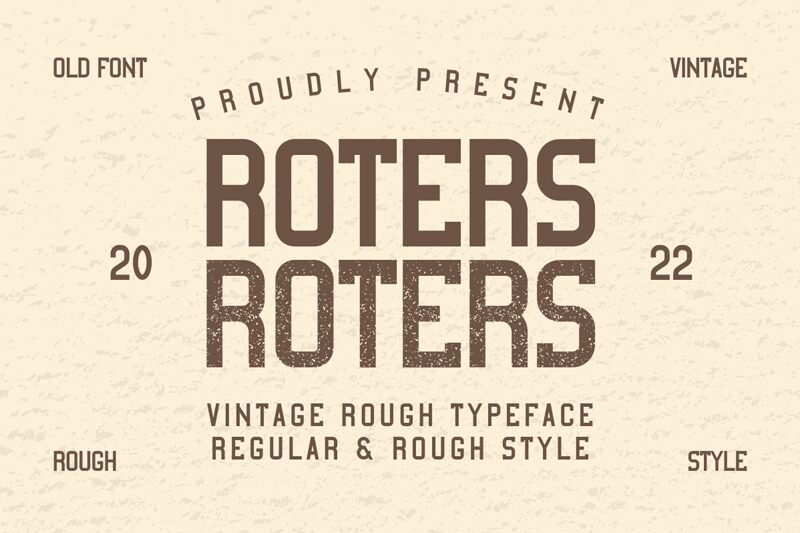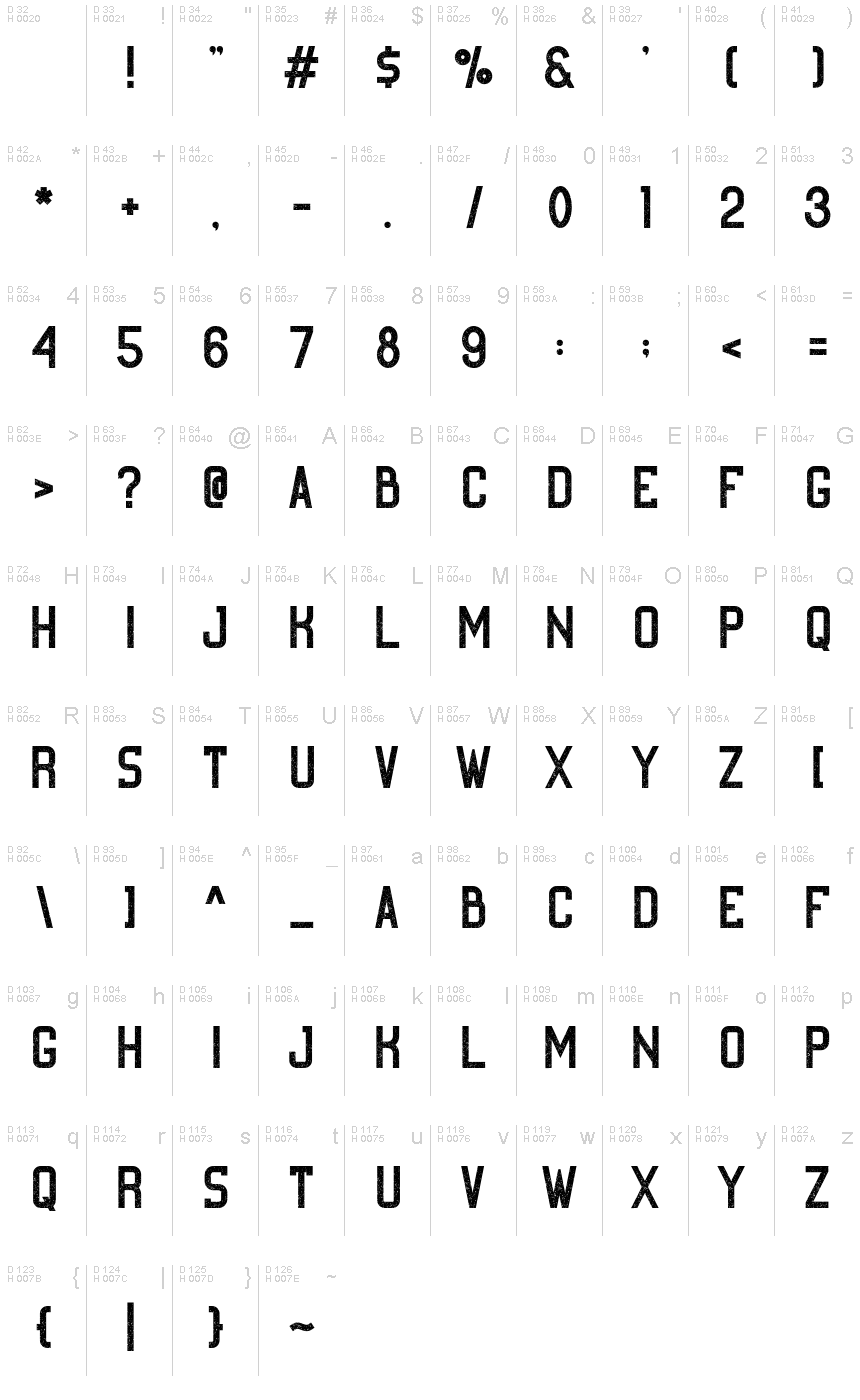
Roters Rough
Roters Rough is a striking display font that exudes a captivating retro charm. Designed by Muhammad Yafinuha, this condensed typeface boasts a rugged, eroded aesthetic that immediately commands attention. The uneven, textured letterforms evoke a sense of weathered resilience, lending an intriguing industrial edge to any design.
Roters Rough's versatility shines through, making it a compelling choice for a diverse array of applications. From gritty editorial layouts to bold branding, this font's unique personality can elevate both contemporary and nostalgic design sensibilities. Its condensed width adds a sense of visual impact, making it an ideal candidate for headlines, logos, and other display-oriented elements.